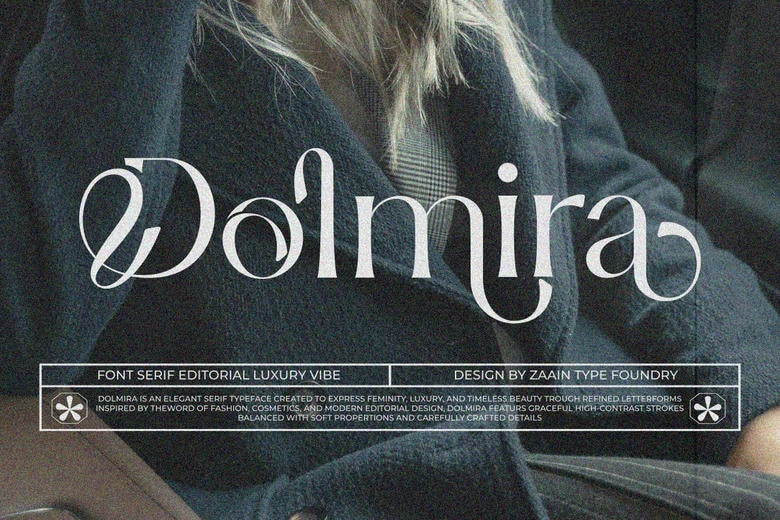
Dolmira Font
Dolmira is a beautiful serif font with a classic character and a sophisticated modern touch. Featuring smooth thick-and-thin contrast, graceful letterforms and luxurious details, Dolmira is perfectly suited for premium branding needs. Designed to convey a sophisticated and feminine impression, this typeface is a perfect choice for items of fashion, cosmetics, editorial layouts, exclusive invitations, logo design, and high-end packaging design.
Dolmira offers a timeless ambiance with a clean and professional look. With a strong yet soft look, Dolmira is ready to become the centerpiece of any design that wants to look elegant and unique.
Dolmira Serif Font